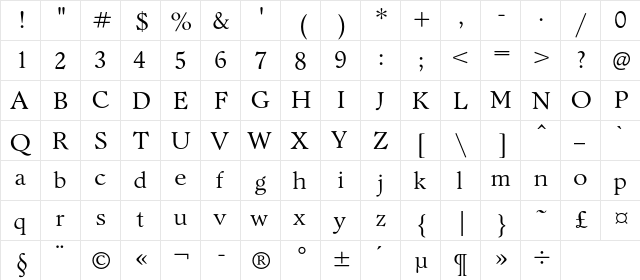
BannikovaC Regular
Design Context for BannikovaC Typeface
BannikovaC is a composed and adaptable typeface that performs quietly and consistently across a wide range of design contexts.